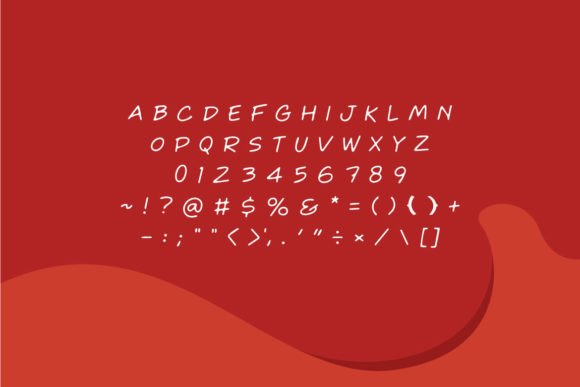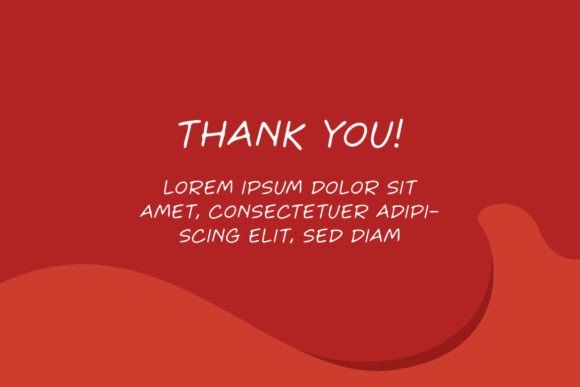
Introducing Esteh Font: The Fun and Assertive Display Font You Need
Are you tired of using the same old fonts in your designs? Do you want to add a touch of personality and flair to your creations? Look no further than Esteh Font, a fun and assertive display font that’s sure to elevate your font library. In this article, we’ll take a closer look at Esteh Font, its features, and how it can benefit designers and crafters.
What is Esteh Font?
Esteh Font is a display font designed to make a statement. With its unique and playful style, it’s perfect for adding a touch of whimsy to any design project. Whether you’re working on a logo, brochure, or social media graphic, Esteh Font is sure to grab attention and leave a lasting impression.
Key Features of Esteh Font
- Fun and Assertive: Esteh Font is designed to be fun and assertive, making it perfect for designs that need a bold and playful touch.
- Unique Style: With its distinctive style, Esteh Font stands out from other fonts, ensuring your designs will never go unnoticed.
- Versatile: Esteh Font can be used on a wide range of design projects, from logos and brochures to social media graphics and more.
- Easily Readable: Despite its playful style, Esteh Font is easily readable, making it perfect for use in both digital and print designs.
Benefits of Using Esteh Font
So why should you choose Esteh Font for your design projects? Here are just a few benefits of using this amazing font:
- Adds Personality: Esteh Font adds a touch of personality to your designs, helping you to stand out from the crowd.
- Grabs Attention: With its bold and playful style, Esteh Font is sure to grab attention and draw the eye.
- Elevates Your Designs: Esteh Font has the potential to elevate any design project, making it a valuable addition to your font library.
- Easy to Use: Esteh Font is easy to use and can be easily integrated into your design workflow.
Who Can Benefit from Esteh Font?
Esteh Font is perfect for a wide range of designers and crafters, including:
- Graphic Designers: Graphic designers can use Esteh Font to add a touch of personality to their designs, from logos and brochures to social media graphics and more.
- Logotype Designers: Logotype designers can use Esteh Font to create unique and memorable logos that stand out from the crowd.
- Crafters: Crafters can use Esteh Font to add a touch of whimsy to their craft projects, from handmade cards to DIY home decor.
- Digital Artists: Digital artists can use Esteh Font to add a touch of personality to their digital art, from illustrations to graphic designs.
In conclusion, Esteh Font is a fun and assertive display font that’s sure to elevate your font library. With its unique and playful style, it’s perfect for adding a touch of personality to any design project. Whether you’re a graphic designer, logotype designer, crafter, or digital artist, Esteh Font is a valuable addition to your design toolkit. So why wait? Download Esteh Font today and start creating amazing designs that stand out from the crowd!